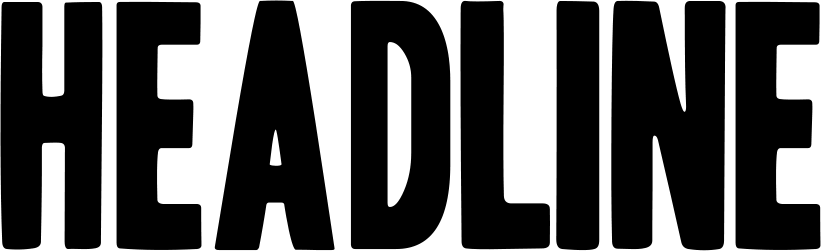
Headline Font
Let’s bring modernity and a friendly vibe to your context easily by choosing the right font. For that, try Headline, a sans-serif font that you can use in multiple projects like website context, news headlines, magazine content, etc.
This typeface comes in two styles, and you can choose whichever you like, each of them containing both the uppercase of the alphabet, the numbers, and a few punctuation marks except for the lowercase.